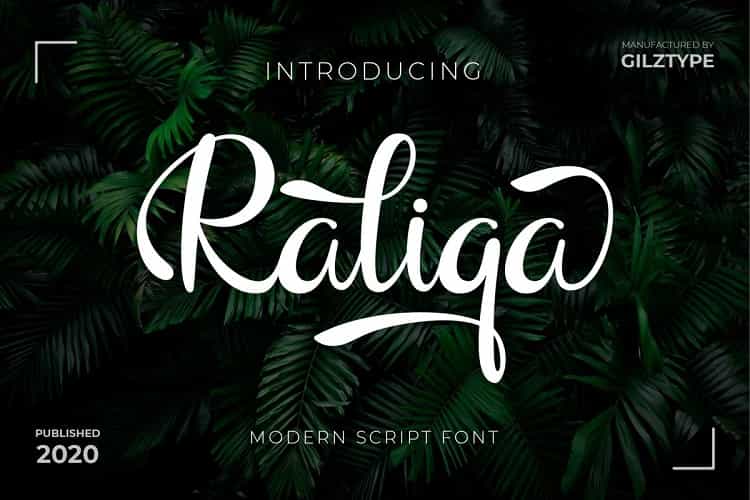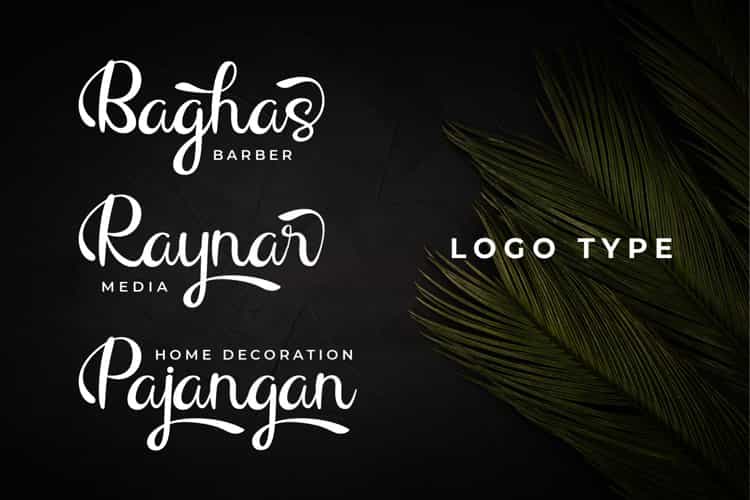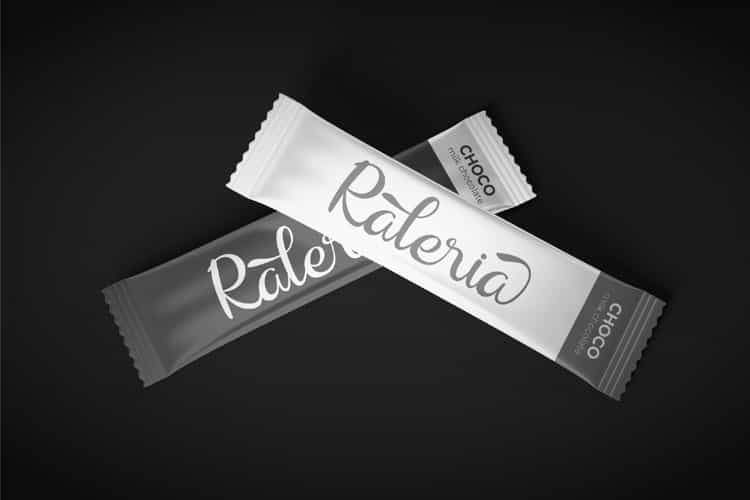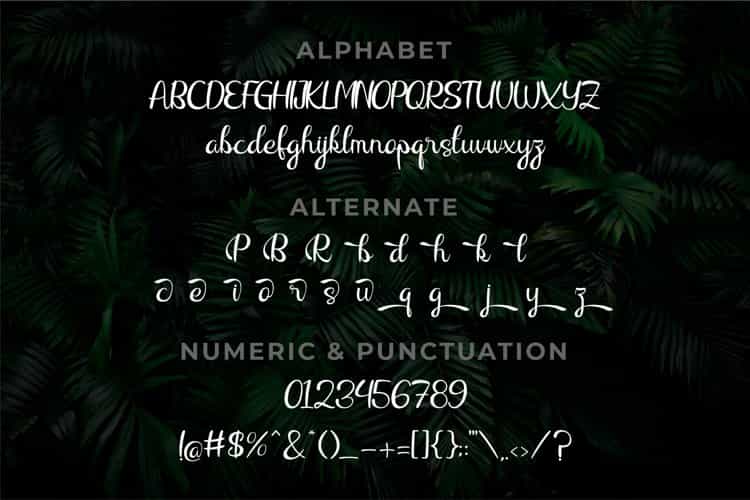
Raliqa is an modern calligraphy script typeface designed to be inspired by contemporary fancy and vintage typography. It is carefully designed with bold strokes at the bottom of the letters as well as some fun touches of layouts for letters that allow you to create clean as well as flexible typefaces.